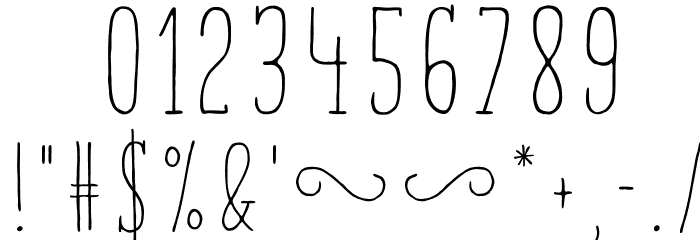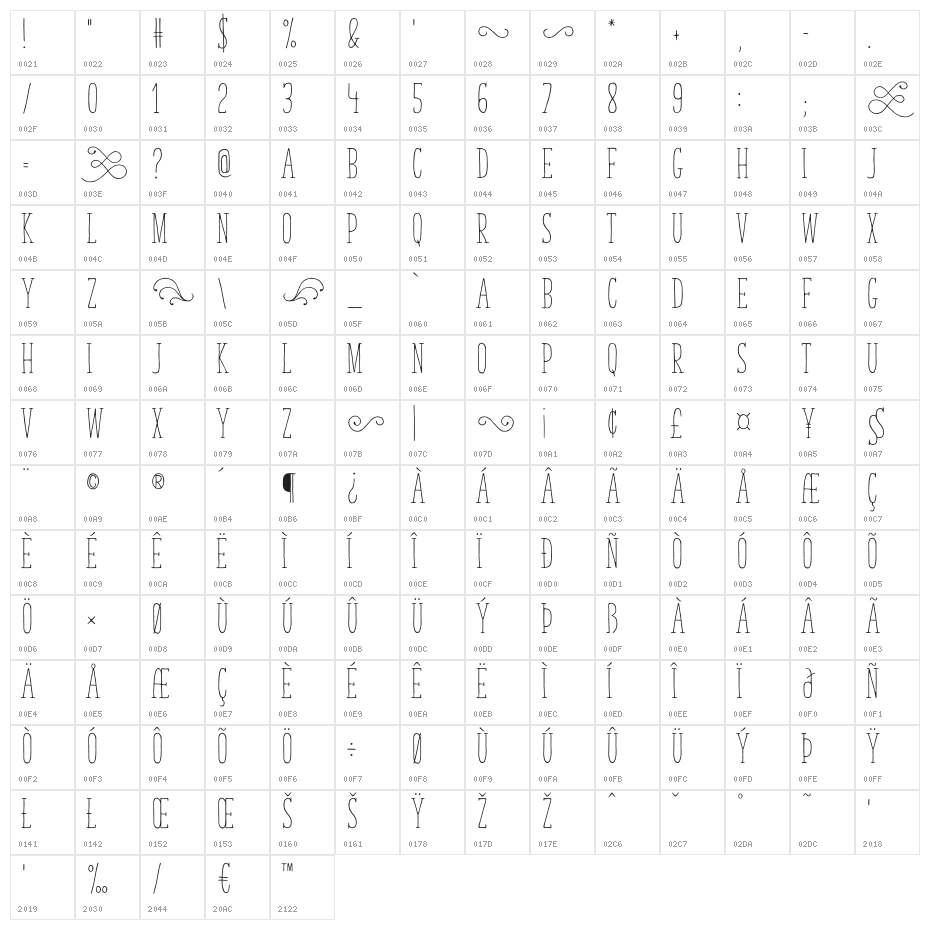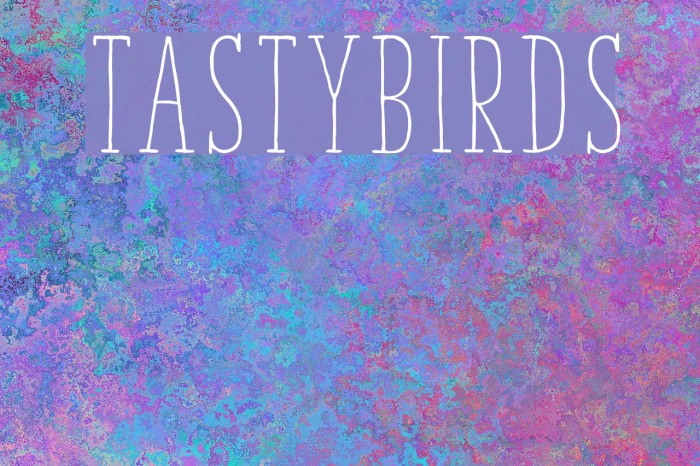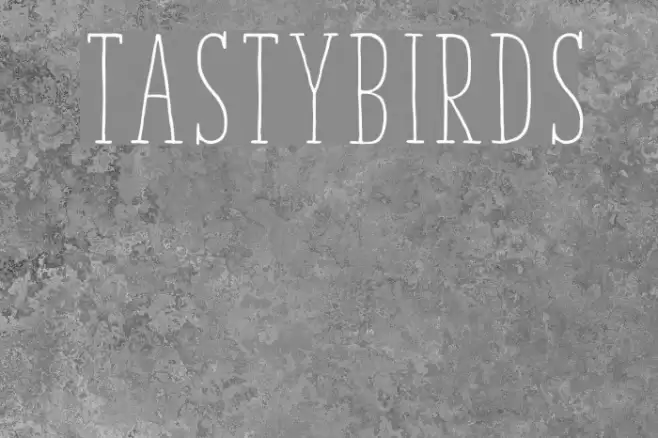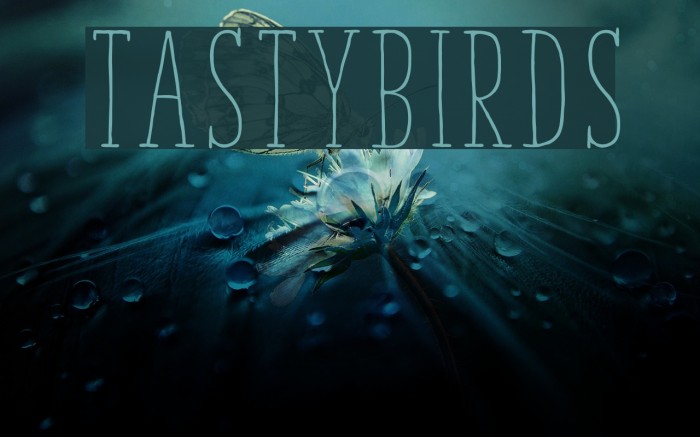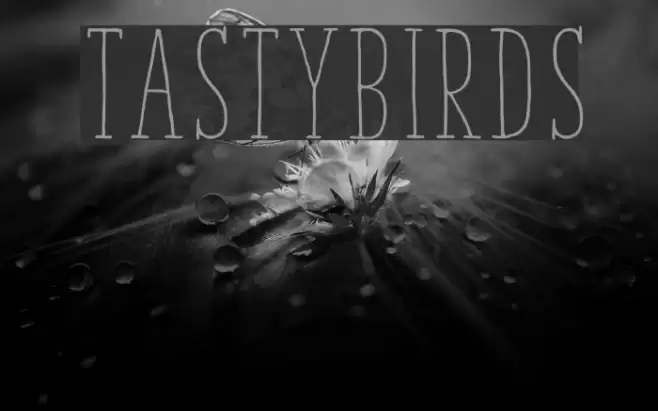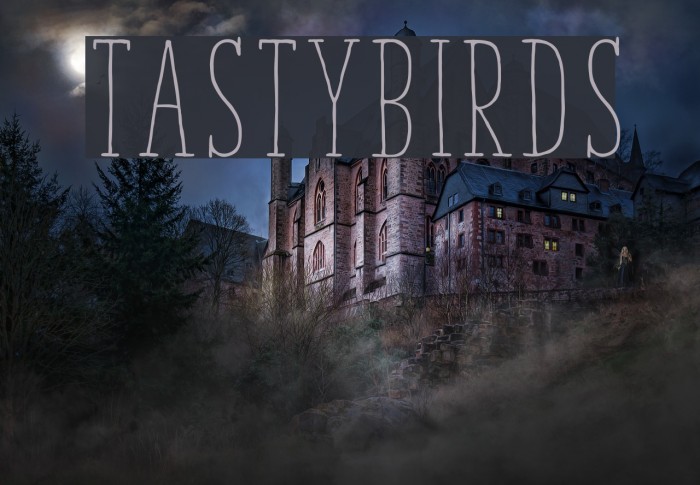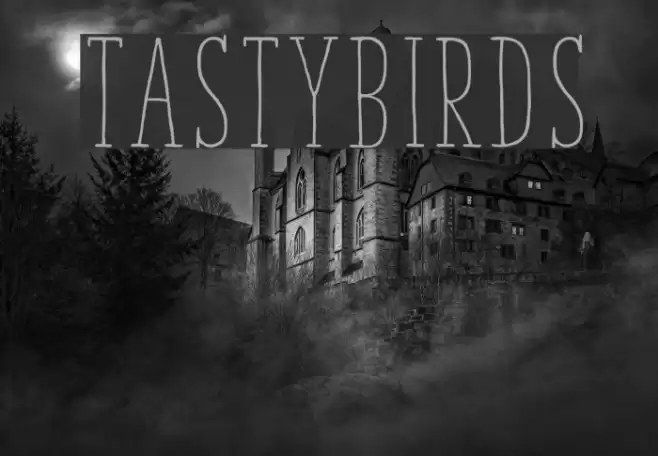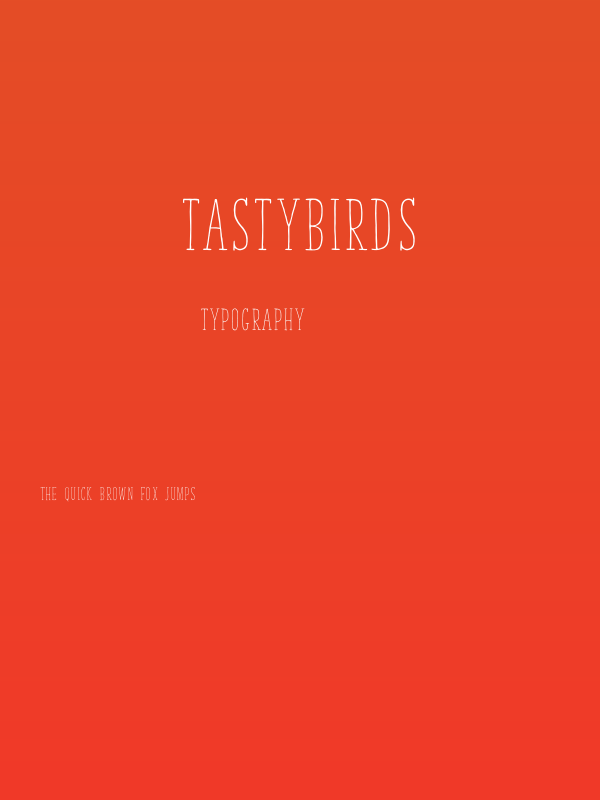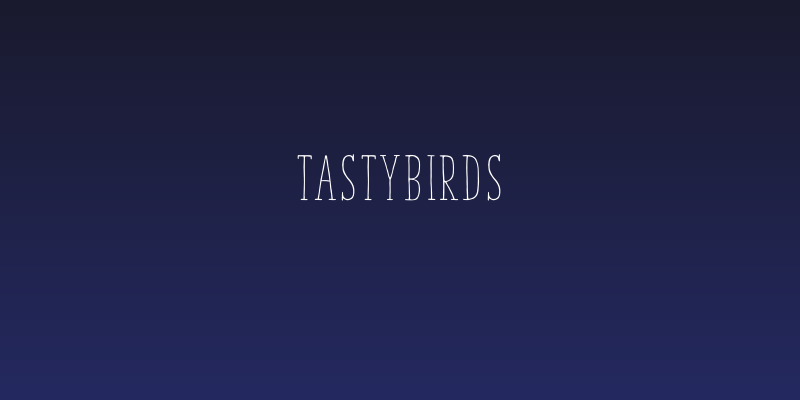
TastyBirds Font
TastyBirds Description
This font features a playful and whimsical design with tall, narrow characters that have a hand-drawn quality. The strokes are uneven, giving it a charming, rustic appearance. The uppercase and lowercase letters maintain a consistent style, with elongated verticals and subtle curves. Numbers and special characters are designed in the same quirky manner, adding to the font's cohesive look. The overall style is reminiscent of vintage signage or handwritten notes, making it ideal for projects that require a personal touch.
| Proposed Projects | Ideal for greeting cards, invitations, posters, and branding projects that require a personal, handmade feel. |